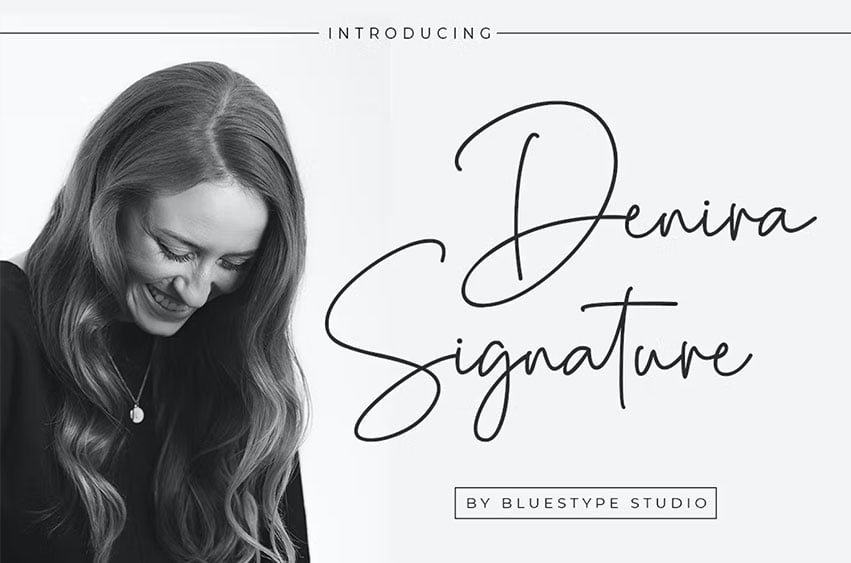
Denira Signature Font is our newest product called Denira Signature. Denira is an incredibly stunning script that will turn any design idea into a true stand out!